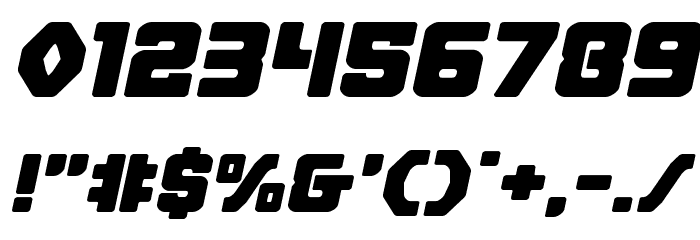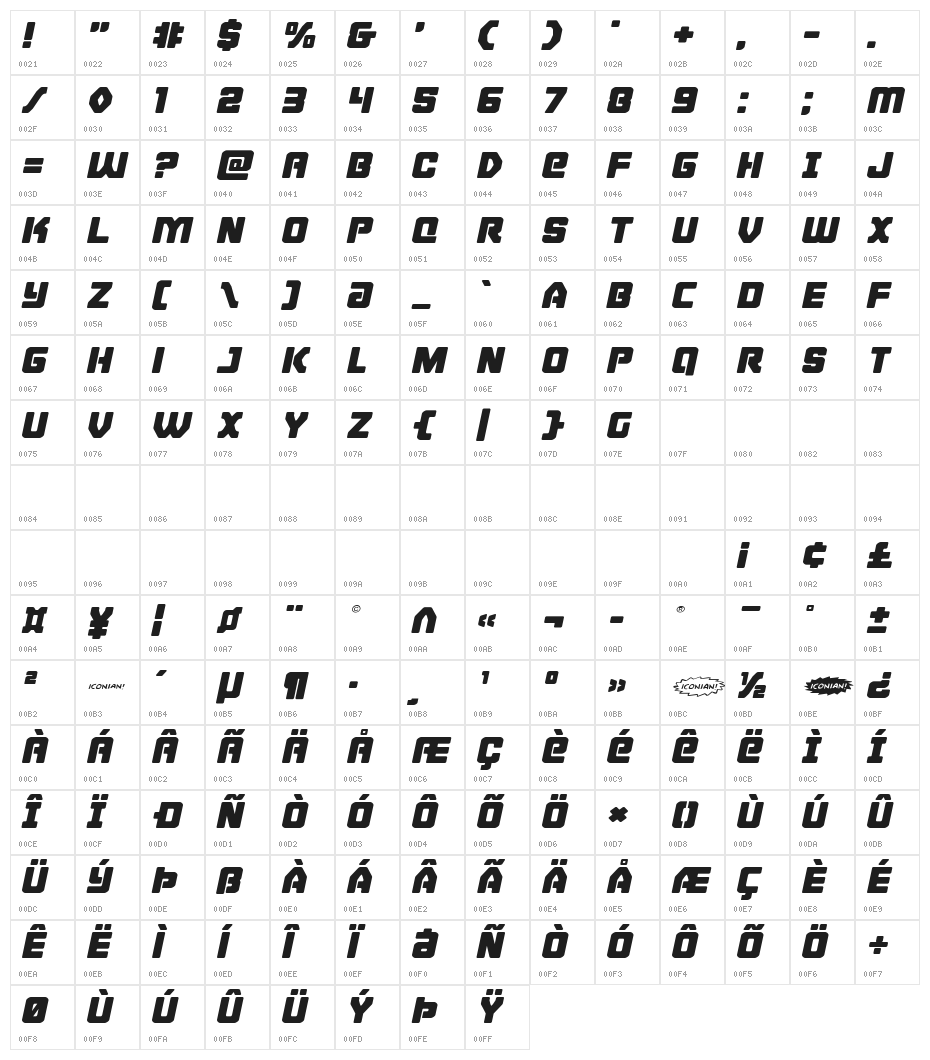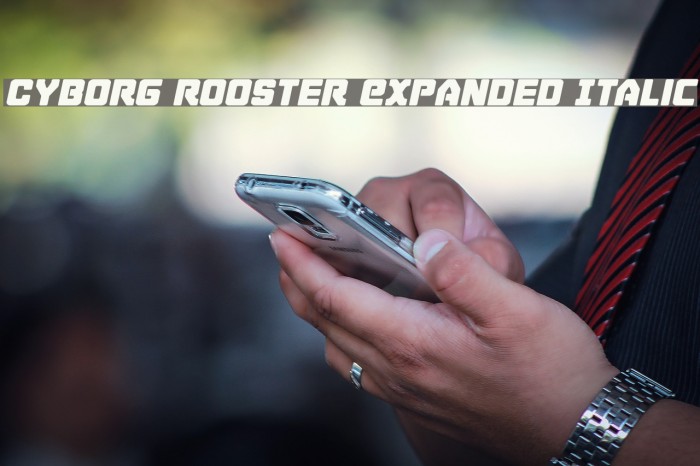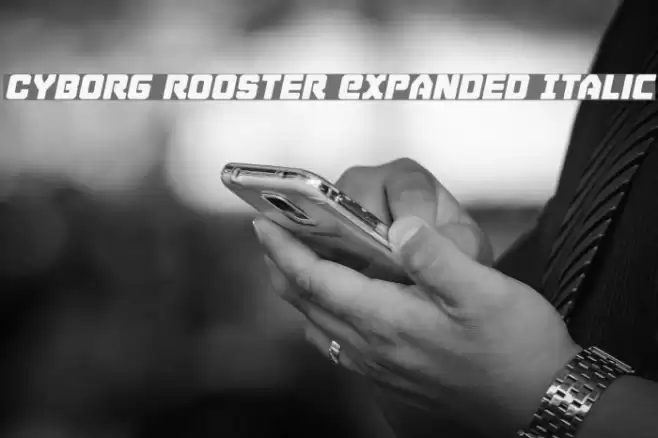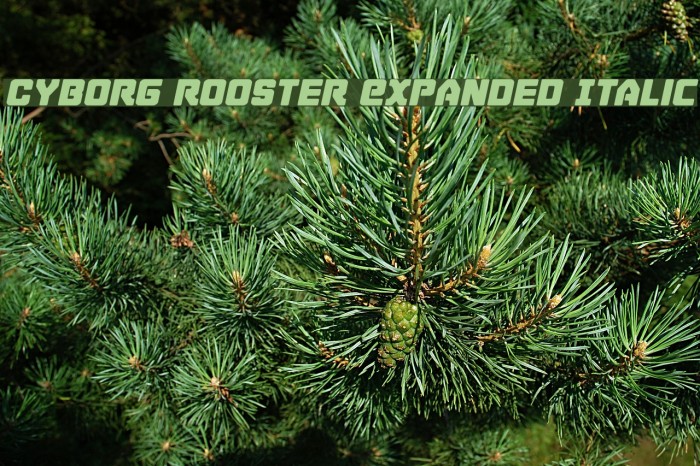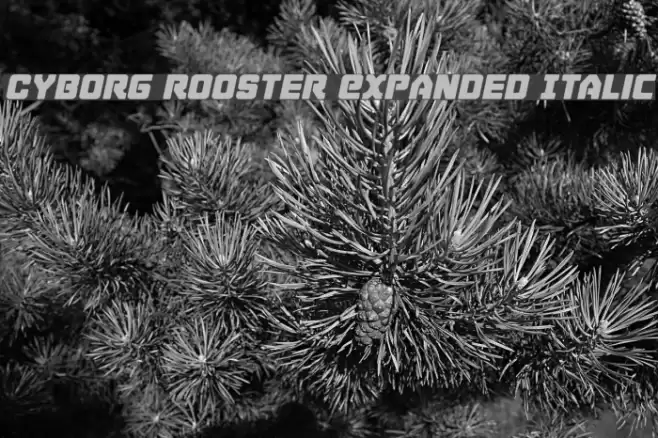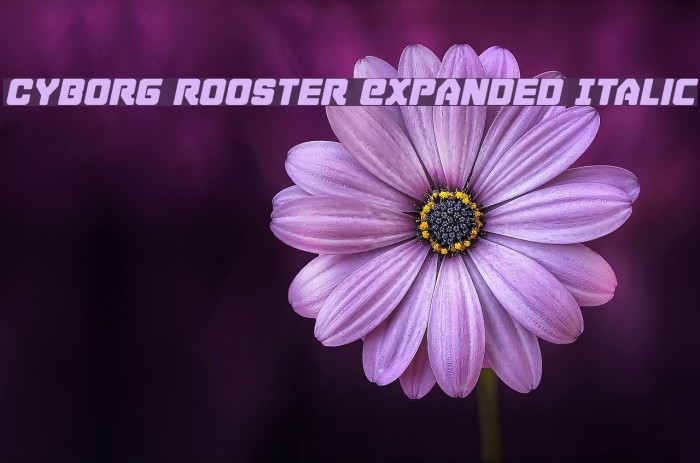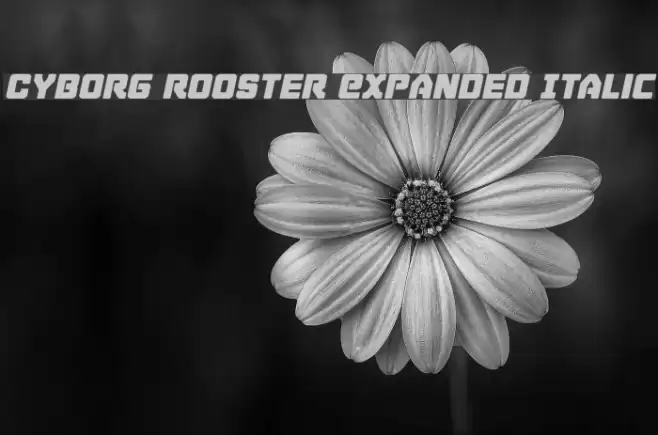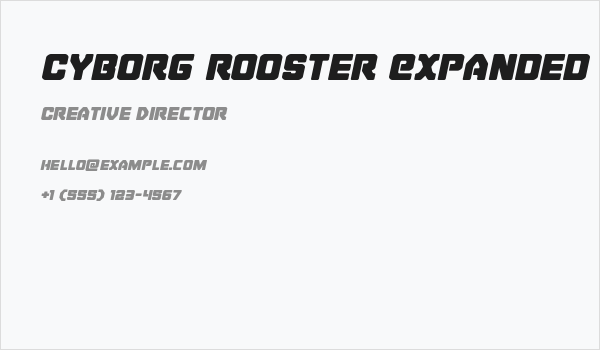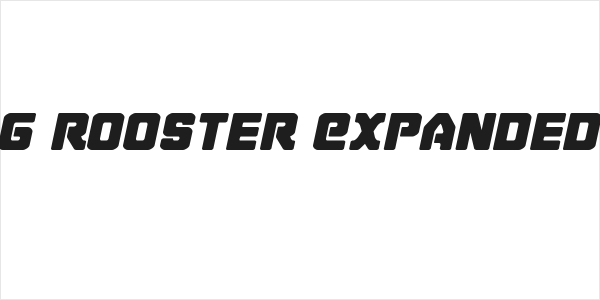
Cyborg Rooster Expanded Italic Font
Cyborg Rooster Expanded Italic Description
This font features a futuristic and bold design with a distinct italic slant, giving it a dynamic and energetic appearance. The characters are expanded, providing a wide and commanding presence. Each letter is crafted with sharp angles and geometric shapes, contributing to its modern and tech-inspired aesthetic. The numbers and special characters maintain the same bold and angular style, ensuring consistency across all glyphs. This font is ideal for projects that require a strong and impactful visual statement.
| Proposed Projects | Ideal for technology branding, sci-fi movie posters, video game titles, and futuristic event flyers. |